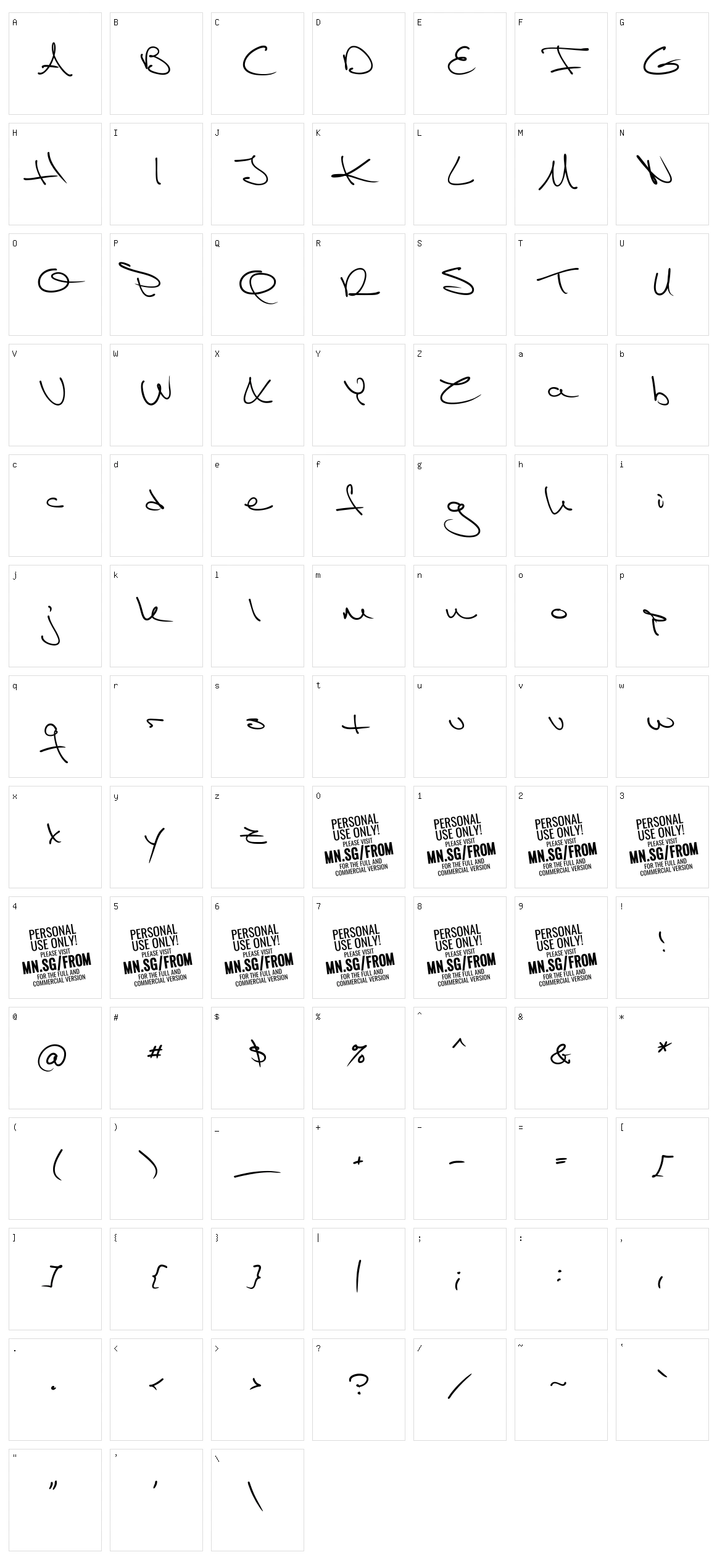
From Skyler is a fast and wild handwriting font.
The typeface is created by Måns Grebäck and supports a wide range of latin languages.
It has several alternate characters, both stylistic and contextual, to make the variation within the lettering more natural.